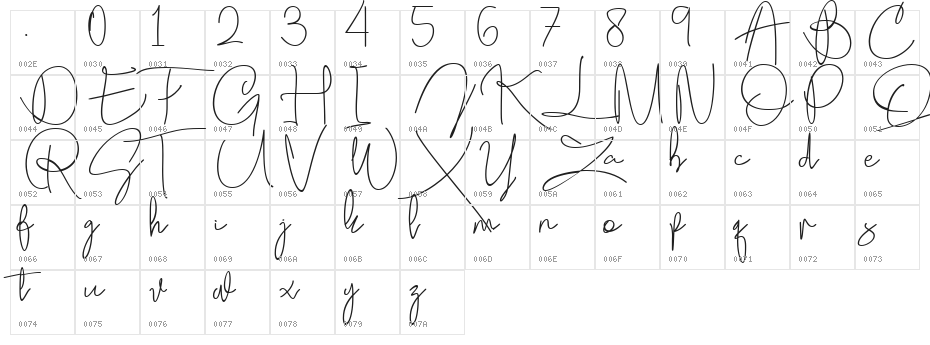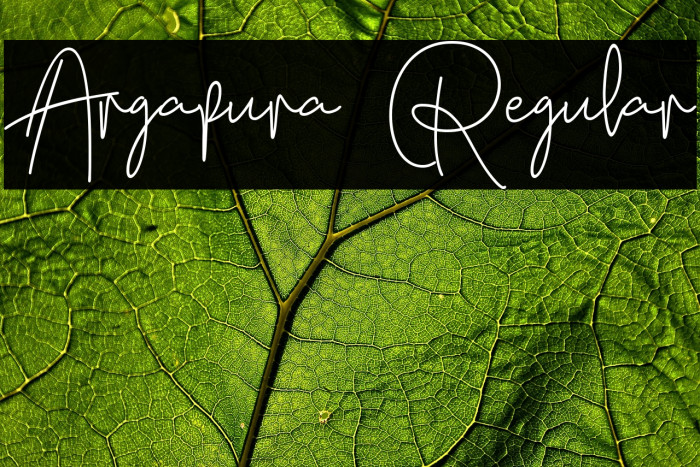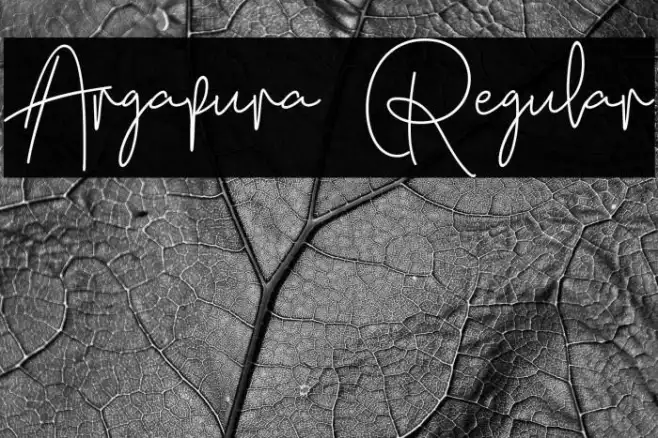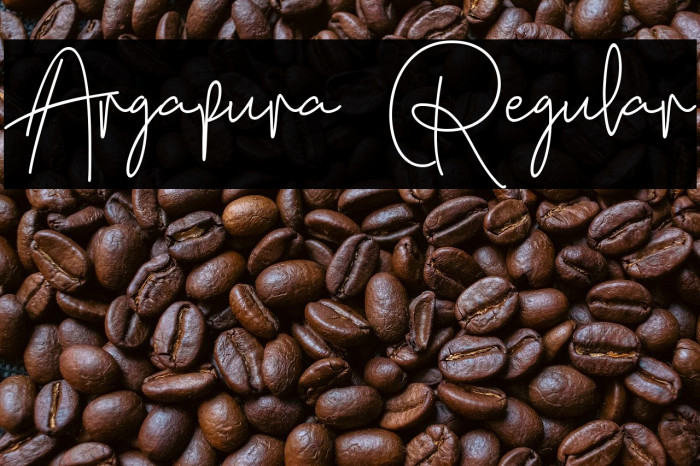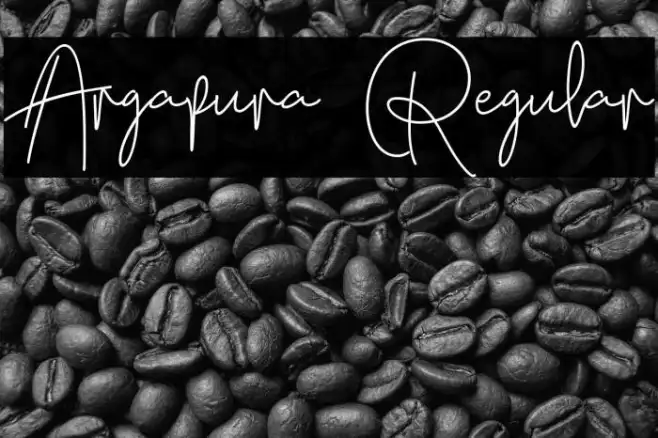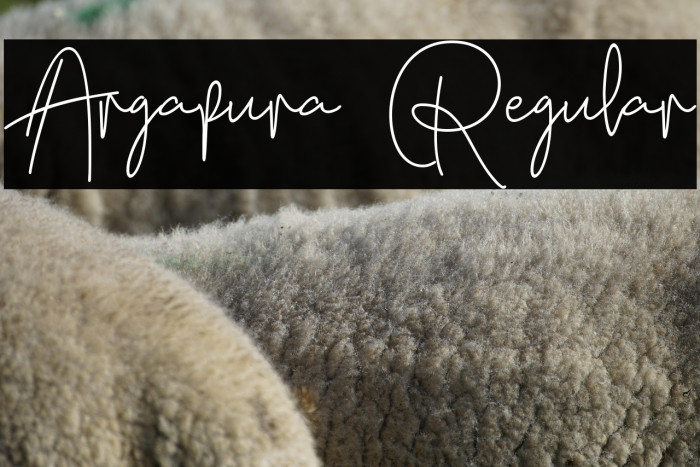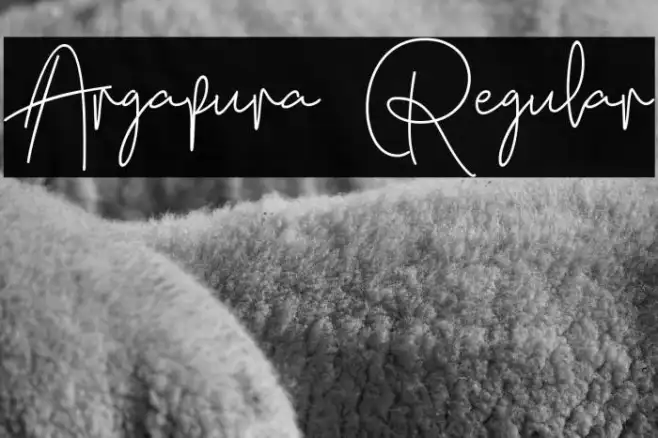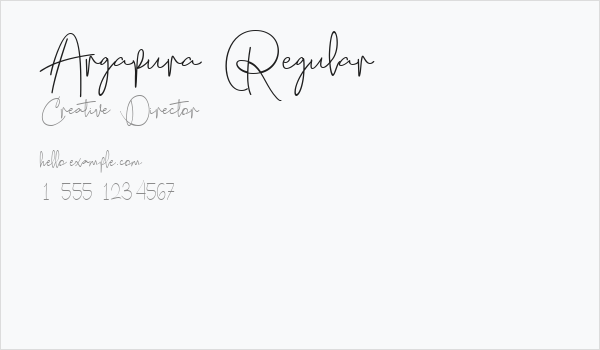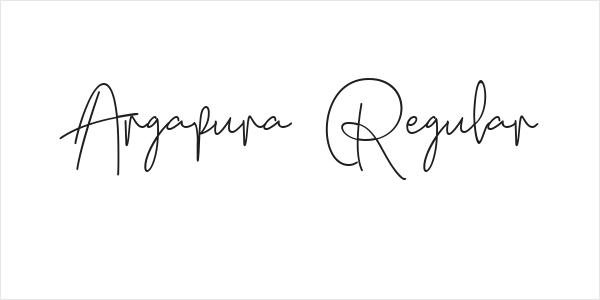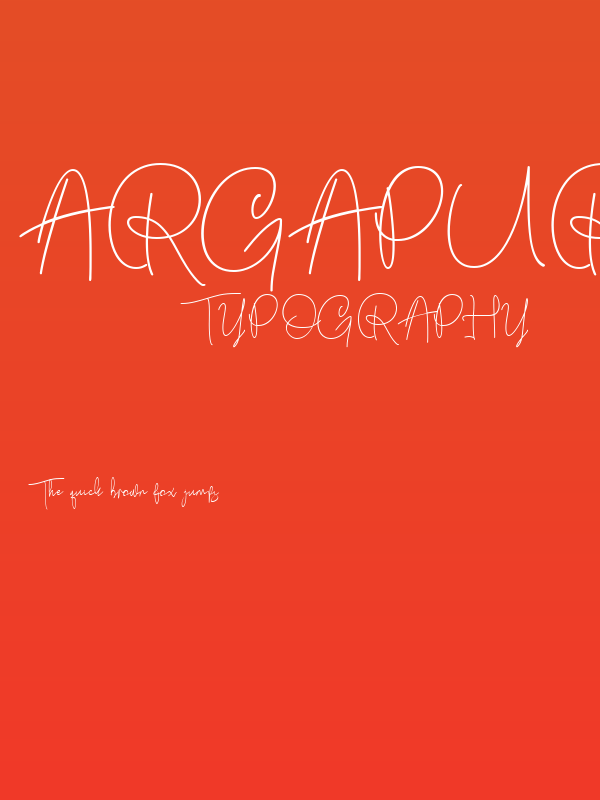
Argapura Regular Font
Argapura Regular Description
This font features a unique and artistic handwritten style, characterized by its flowing and interconnected letterforms. The uppercase letters exhibit a playful and whimsical quality, with varying line thickness that adds a dynamic feel. The lowercase letters maintain a consistent cursive style, enhancing the overall fluidity of the font. Numbers are clear and legible, while special characters blend seamlessly with the alphabet, maintaining the font's cohesive aesthetic. This font's expressive nature makes it suitable for creative and informal projects.